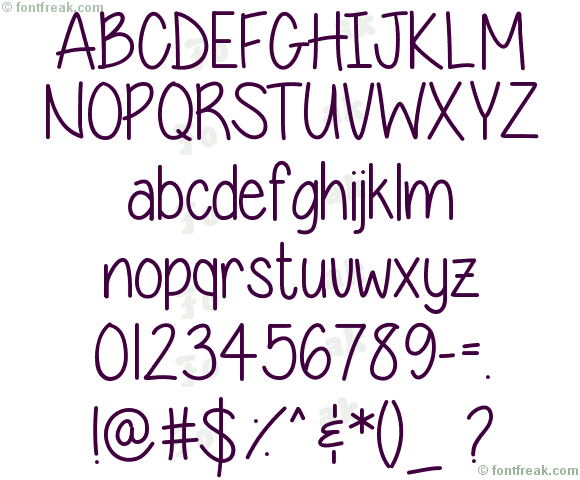
expressions of the soul
About expressions of the soul
The "expressions of the soul" font by Vanessa Bays is a captivating handwritten typeface that exudes a sense of warmth and personal touch. This decorative font features a unique blend of fluid strokes and playful curves that give it an organic, flowing quality. The stroke weight varies gently, creating a harmonious contrast that adds depth to each character. The spacing is thoughtfully designed, ensuring legibility while maintaining an inviting aesthetic. With its charming decorative elements, this font is ideal for projects that seek to evoke emotion and connection.
Best suited for wedding invitations, greeting cards, and personal branding, the "expressions of the soul" font enhances any design with a touch of elegance and sincerity. It can also be effectively used in social media graphics, where a personal voice is essential, as well as in promotional materials for artisanal products or boutique shops, where a handcrafted feel is desired. Small business owners and content creators will find this font particularly appealing, as it resonates with audiences looking for authenticity and warmth.
The target audience for this font includes graphic designers who aim to create heartfelt designs, small business owners seeking to establish a personal brand identity, and content creators who want to convey a unique narrative through their visuals. The versatility of "expressions of the soul" makes it a valuable addition to any designer’s toolkit.
What sets the "expressions of the soul" font apart is its ability to combine style with emotion. It stands out not only for its aesthetic appeal but also for the way it captures the essence of personal expression. For those interested, an "expressions of the soul font free download" is available, allowing you to incorporate this enchanting typeface into your projects effortlessly.